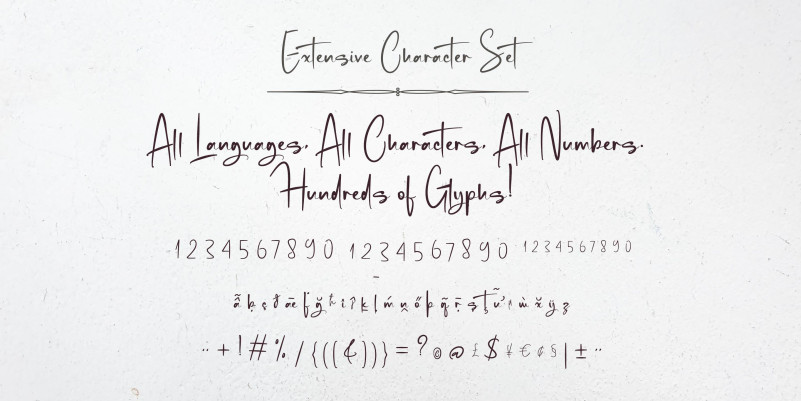
Blink Gaston Font
Blink Gaston Script Font, It can easily be matched to an incredibly large set of projects, so add it to your creative ideas and notice how it makes them stand out!
Use underscore _ anywhere in a word to make a swash.
Example: Hand_script
Use multiple underscores to make different swashes.
Example: Super____writers